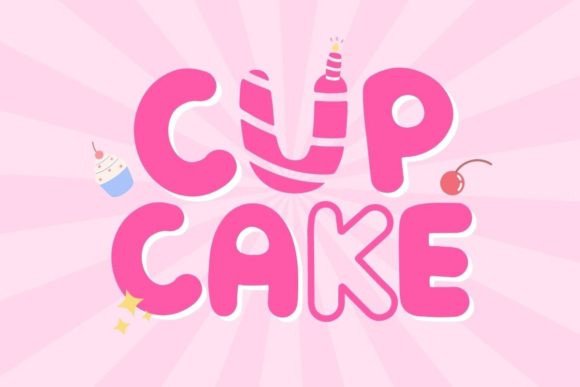
Cupcake Font: The Sweetest Addition to Your Design Collection
Are you looking for a font that can add a touch of sweetness and playfulness to your designs? Look no further than the Cupcake Font! This delightful display font is perfect for designers and crafters who want to create visually appealing projects that are sure to capture attention. In this article, we’ll dive into the features and benefits of the Cupcake Font, and explore how you can use it to take your designs to the next level.
What is Cupcake Font?
Cupcake Font is a sweet and playful display font that is designed to add a touch of whimsy to your designs. With its cute and curly letters, this font is perfect for creating eye-catching projects that are sure to delight. One of the standout features of the Cupcake Font is its adorable candle gimmick, which adds an extra touch of sweetness to your designs.
Features of Cupcake Font
- Sweet and Playful Design: The Cupcake Font features a sweet and playful design that is perfect for creating fun and eye-catching projects.
- Cute Candle Gimmick: The font comes complete with a cute candle gimmick that adds an extra touch of sweetness to your designs.
- High-Quality Design: The Cupcake Font is designed with high-quality graphics that ensure crisp and clear text, even at large sizes.
- Easily Editable: The font is easily editable, making it simple to customize to suit your design needs.
Uses for Cupcake Font
The Cupcake Font is ideal for a range of design projects, including:
- Logos: The Cupcake Font is perfect for creating fun and eye-catching logos for bakeries, cafes, and other businesses that want to convey a sense of sweetness and playfulness.
- Quotes and Posters: The font is great for creating inspirational quotes, posters, and flyers that are sure to grab attention.
- Cards and Invitations: The Cupcake Font is perfect for creating sweet and playful cards and invitations for parties, birthdays, and other special occasions.
- T-Shirts and Merchandise: The font is great for creating fun and eye-catching designs for t-shirts, mugs, and other merchandise.
Tips for Using Cupcake Font
Here are a few tips for getting the most out of the Cupcake Font:
- Use it Sparingly: The Cupcake Font is a display font, so it’s best to use it sparingly to create emphasis and add visual interest to your designs.
- Pair it with Other Fonts: The Cupcake Font pairs well with other fonts, such as sans-serif fonts, to create a fun and playful contrast.
- Experiment with Colors: The Cupcake Font looks great in a range of colors, from bright and bold to soft and pastel.
The Cupcake Font is a sweet and playful display font that is perfect for designers and crafters who want to add a touch of whimsy to their designs. With its cute and curly letters, adorable candle gimmick, and high-quality design, this font is sure to delight. Whether you’re creating logos, quotes, cards, or merchandise, the Cupcake Font is a great choice. So why not give it a try and see how it can add a sweet touch to your designs?